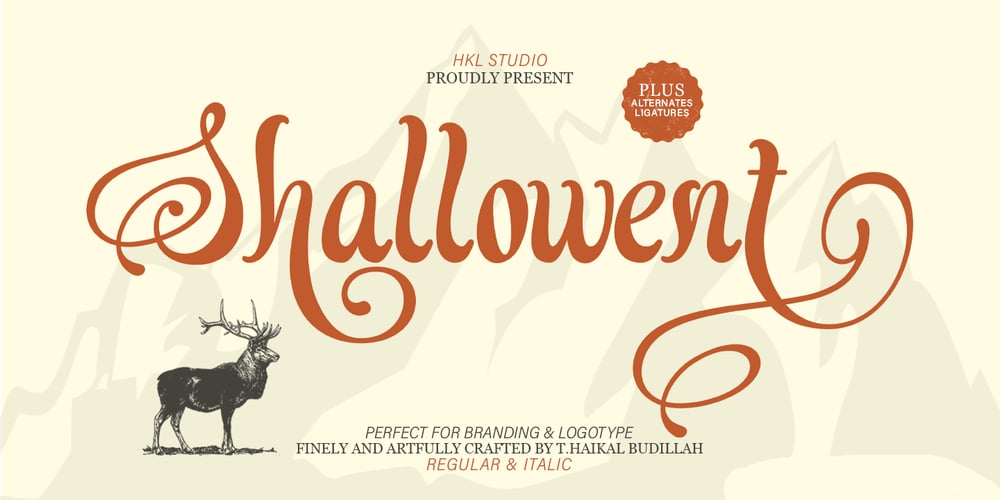
Shallowent Font Family was designed by T Haikal Budillah and published by HKL Studio. Shallowent contains 2 styles and family package options. Shallowent is a stunning calligraphy font with a classic retro style, regular artistic swirls and slanted serifs come together to create a distinctive, high-quality and exclusive typeface that will bring vintage charm to your designs.This font is created with advanced OpenType functionality and has the best quality guarantee, contains stylistic and contextual alternatives, ligatures and other features; all to give you complete control and customization capabilities.It contains all the characters and symbols you need, including all punctuation and numbers.